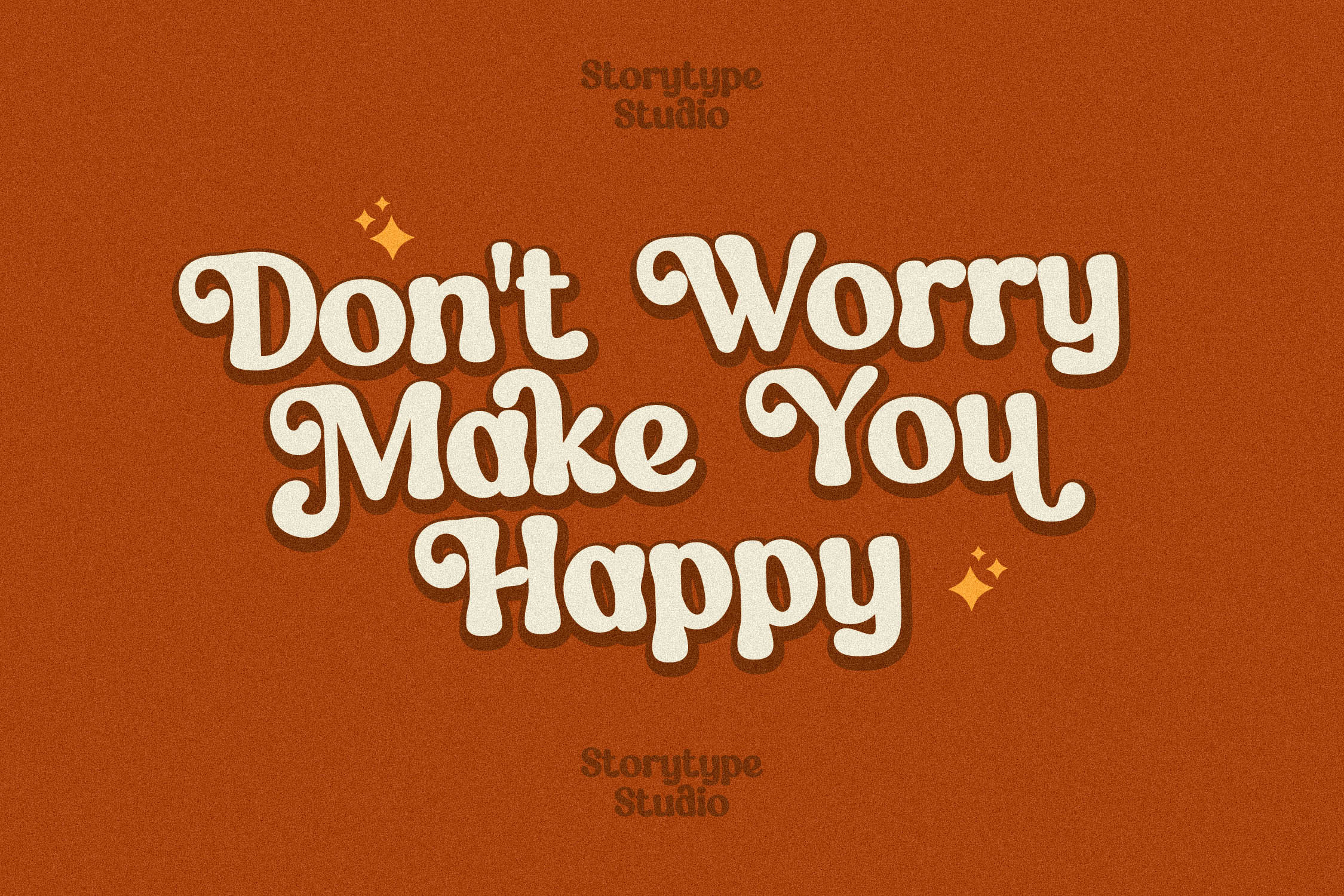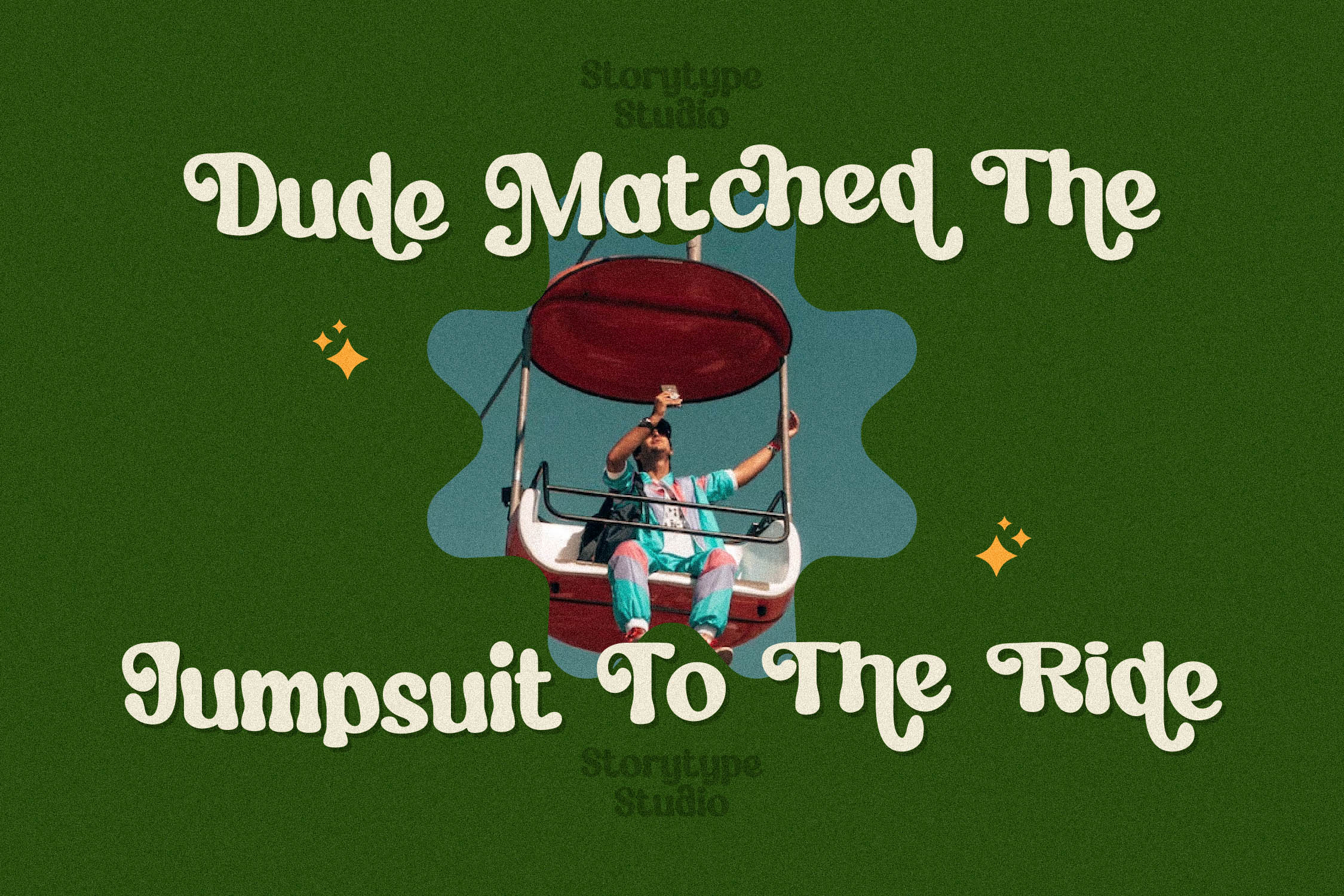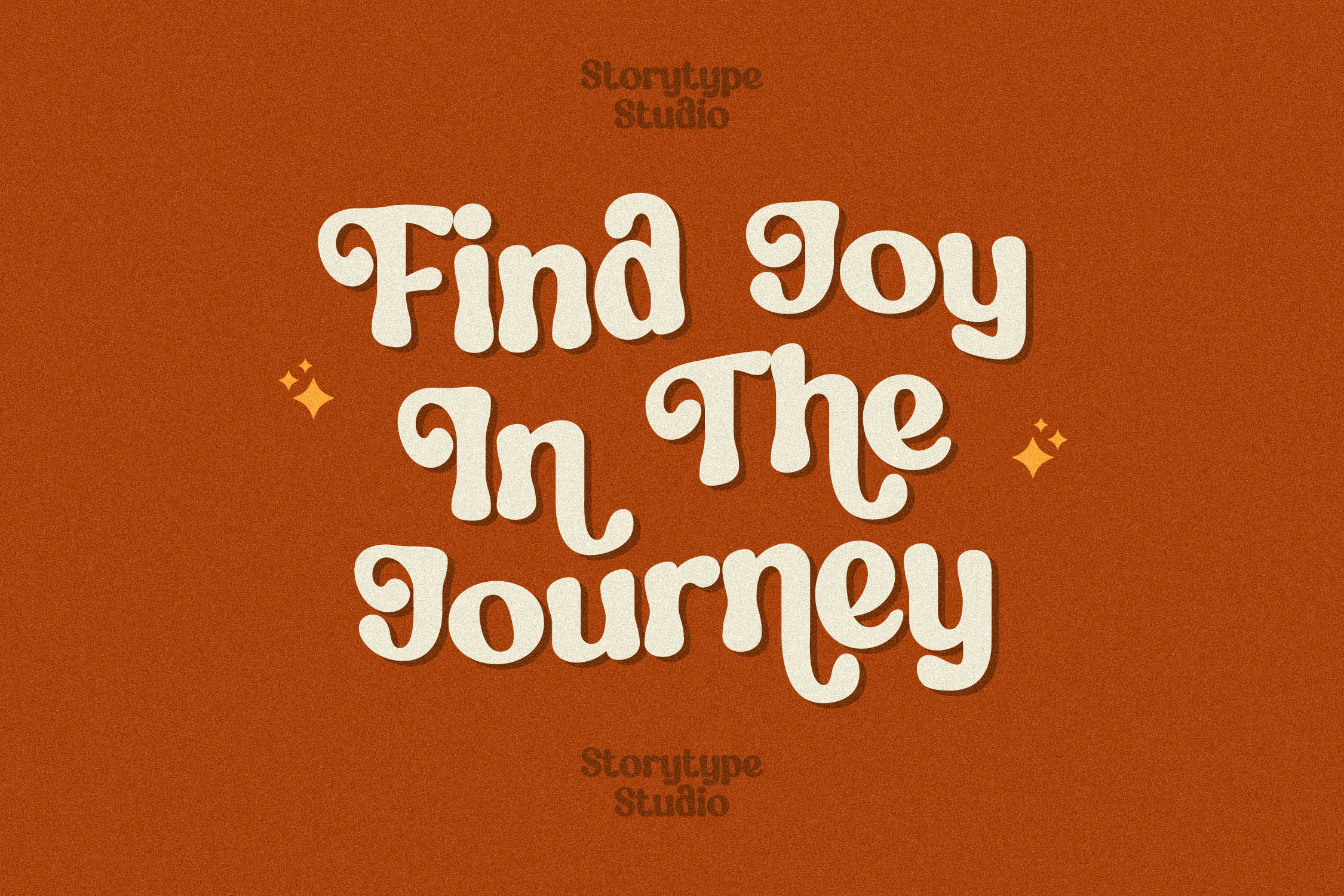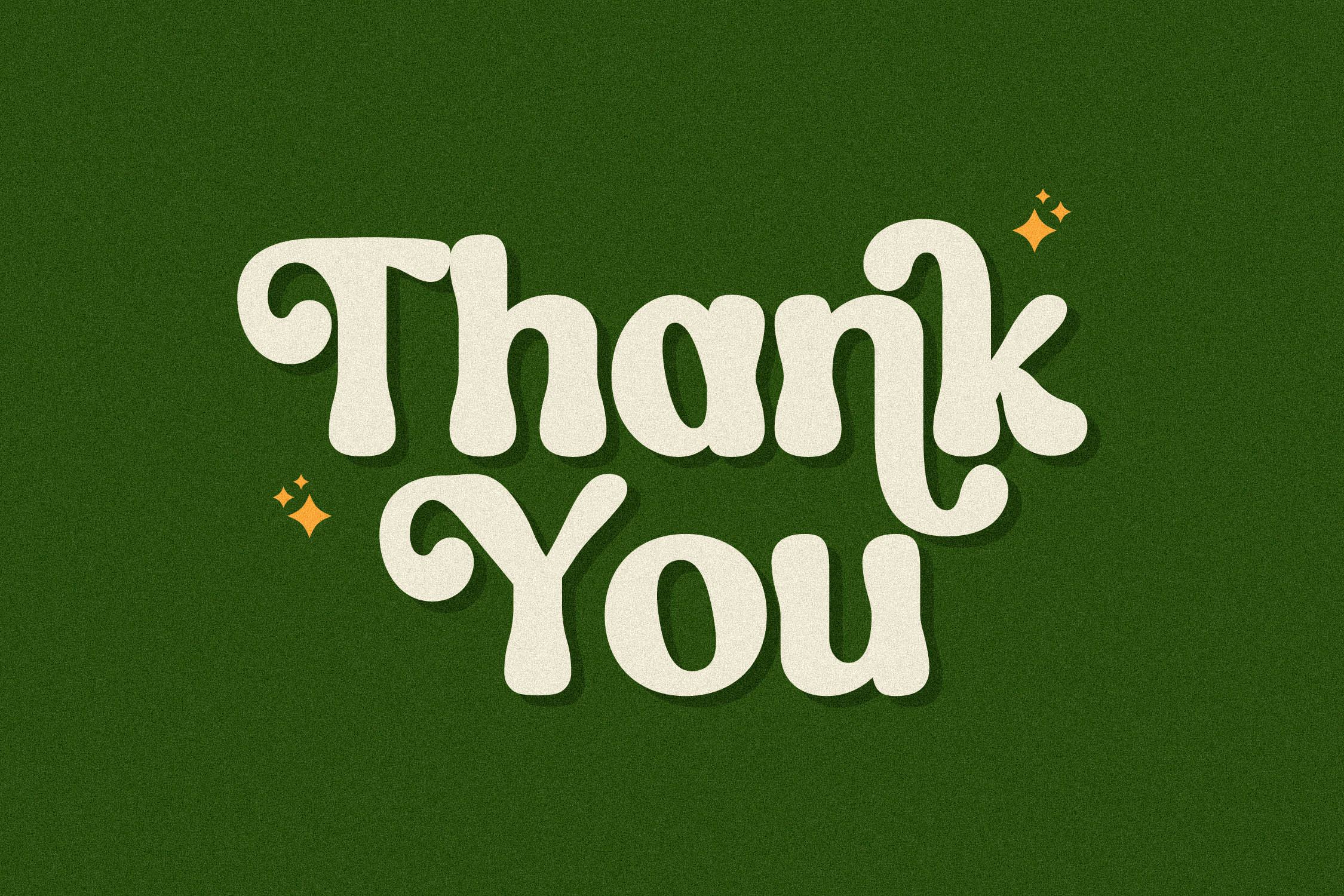
Muloka Kerash Font
Muloka Kerash Serif Font is a serif modern and classic typeface that has own unique style & modern look. This typeface is perfect for an elegant & luxury logo, book or movie title design, fashion brand, magazine, clothes, lettering, quotes, and so much more.